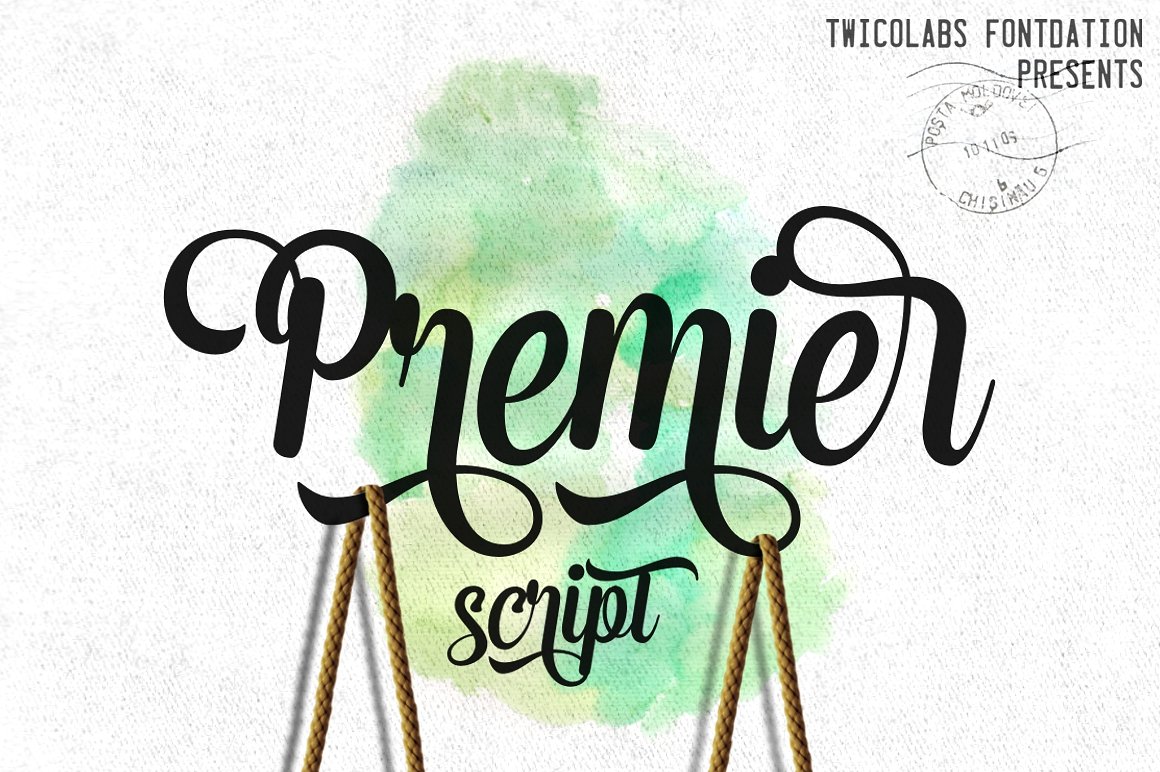
Premier Script Font
A smooth and playful script with 400+ glyphs. Crafted with details, smooth lines and curves but still gives you a natural hand-lettering experience. Supported with lots of OpenType Characters (stylistic alternates, swashes, titlings, terminal forms, ligatures, etc) and some multilingual characters. Suits best for logotype, title/headlines, typographic quote/design, etc.